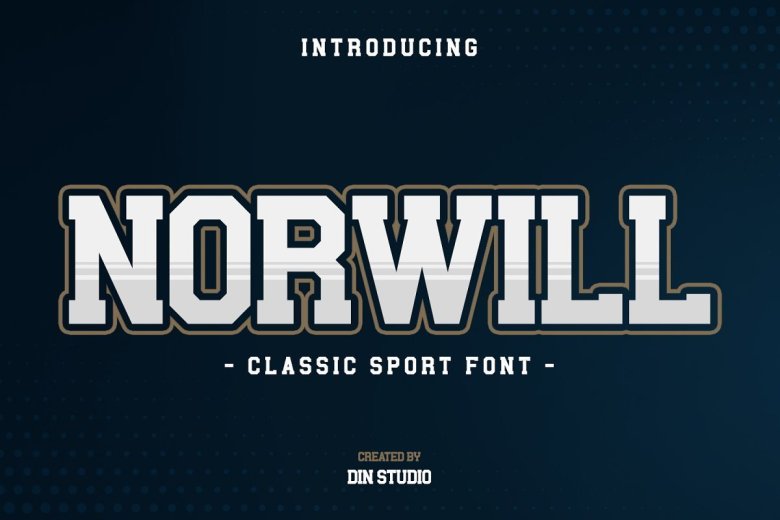
Norwill Classic Sport Display Font
Norwill Classic Sport Display Font is a modern display typeface. Consist of Standard upper/lower case characters, numerals, punctuations, some multilingual letters. Made for any professional project especially that related to the sports.